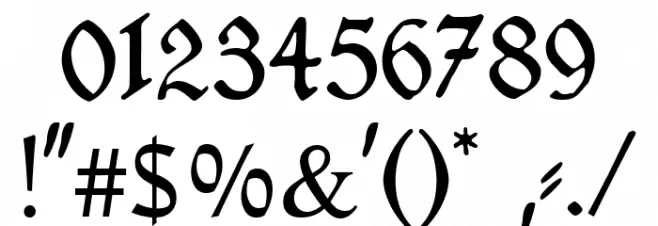
CAT Liebing Gotisch Font
CAT Liebing Gotisch Description
This font embodies the traditional and ornate characteristics of Blackletter typefaces, featuring intricate and angular strokes that are reminiscent of medieval script. The uppercase letters are bold and commanding, with sharp edges and pointed serifs that give them a gothic appearance. The lowercase letters maintain a consistent style, with a slightly more rounded form that complements the uppercase. Numbers and special characters are designed with the same attention to detail, ensuring a cohesive look across all elements. The overall design is highly decorative, making it suitable for projects that require a historical or classical touch.
A traditional Blackletter font with intricate, angular strokes and a gothic appearance from Uncategorized fonts.